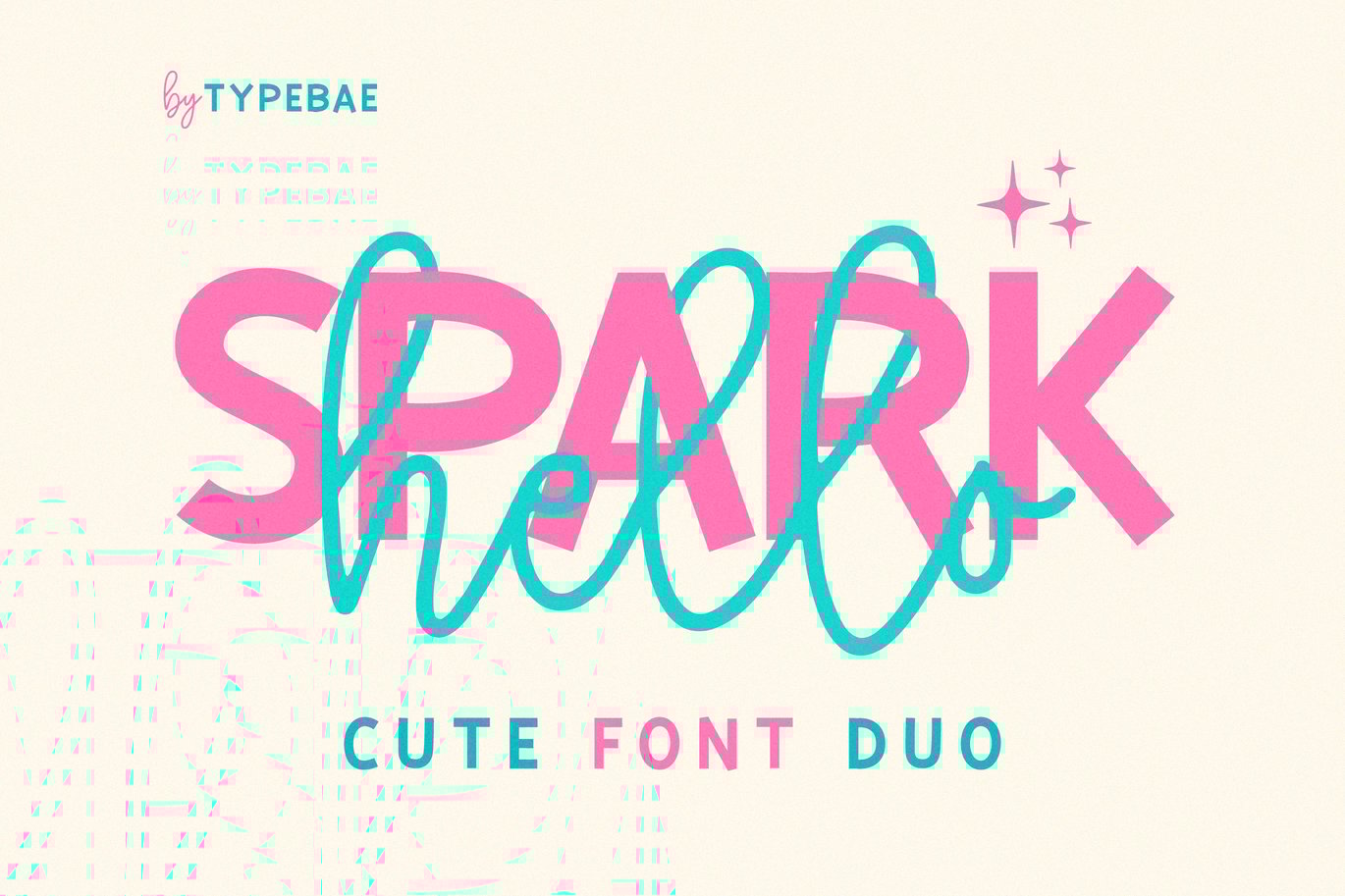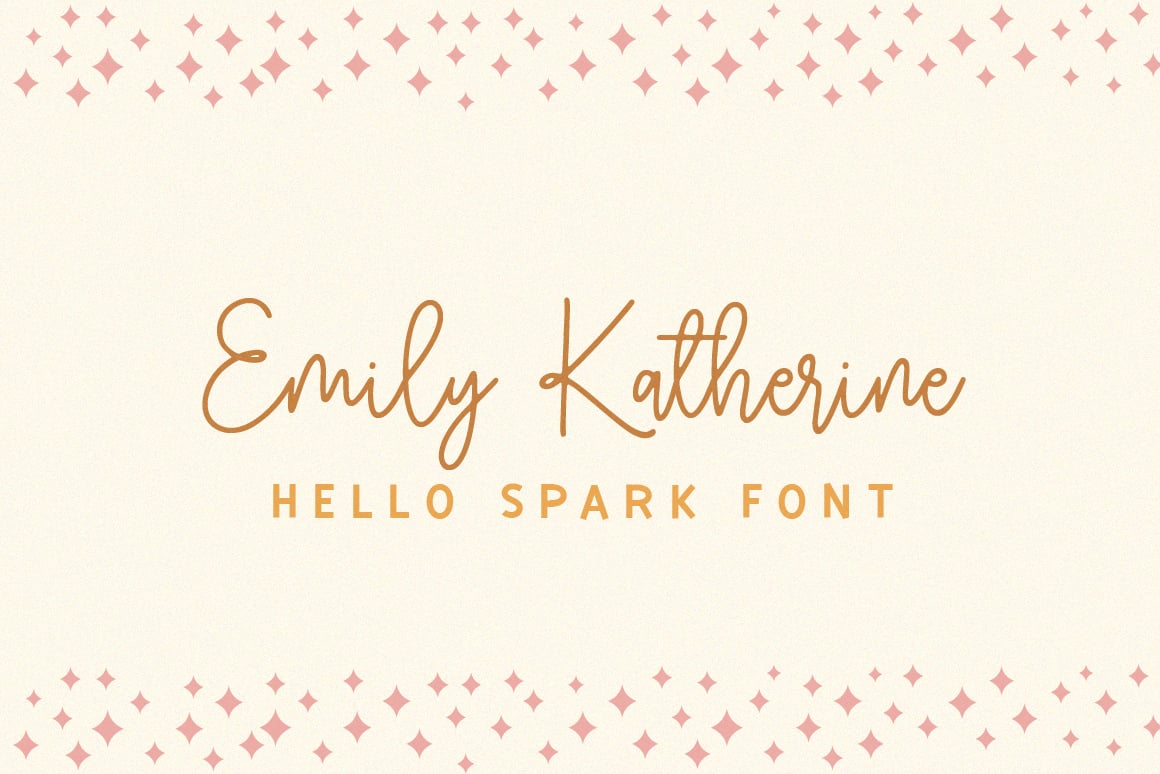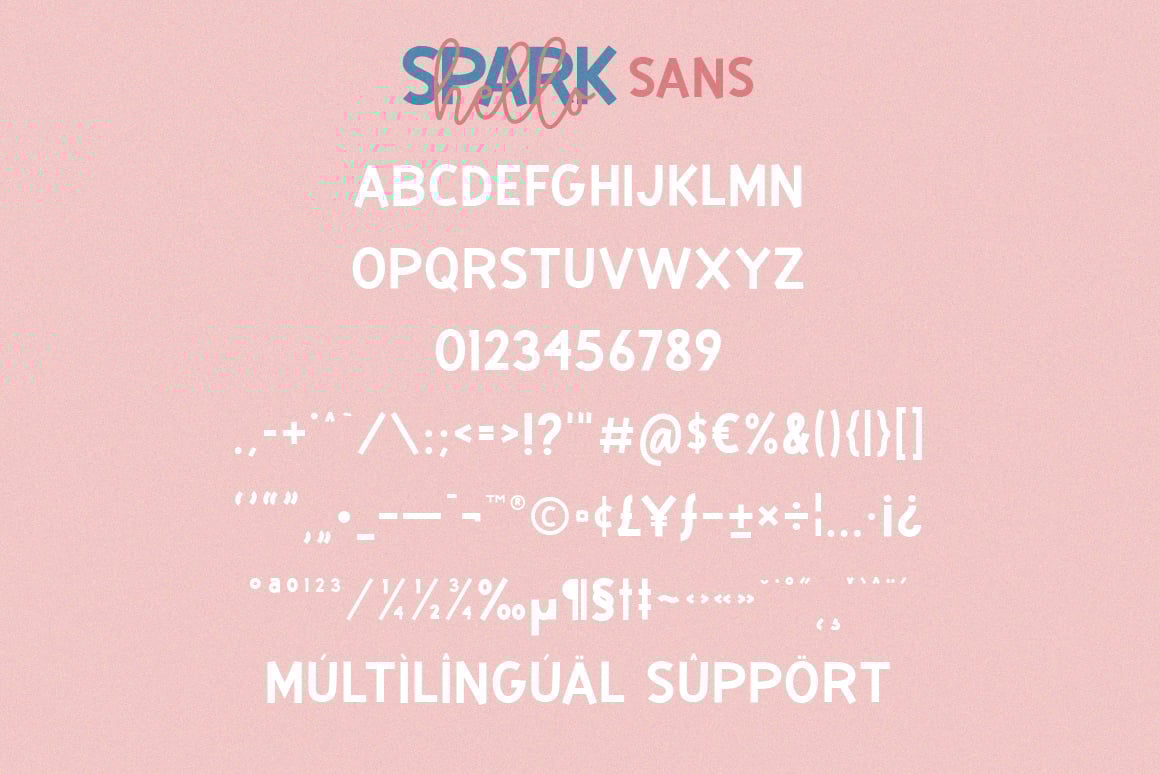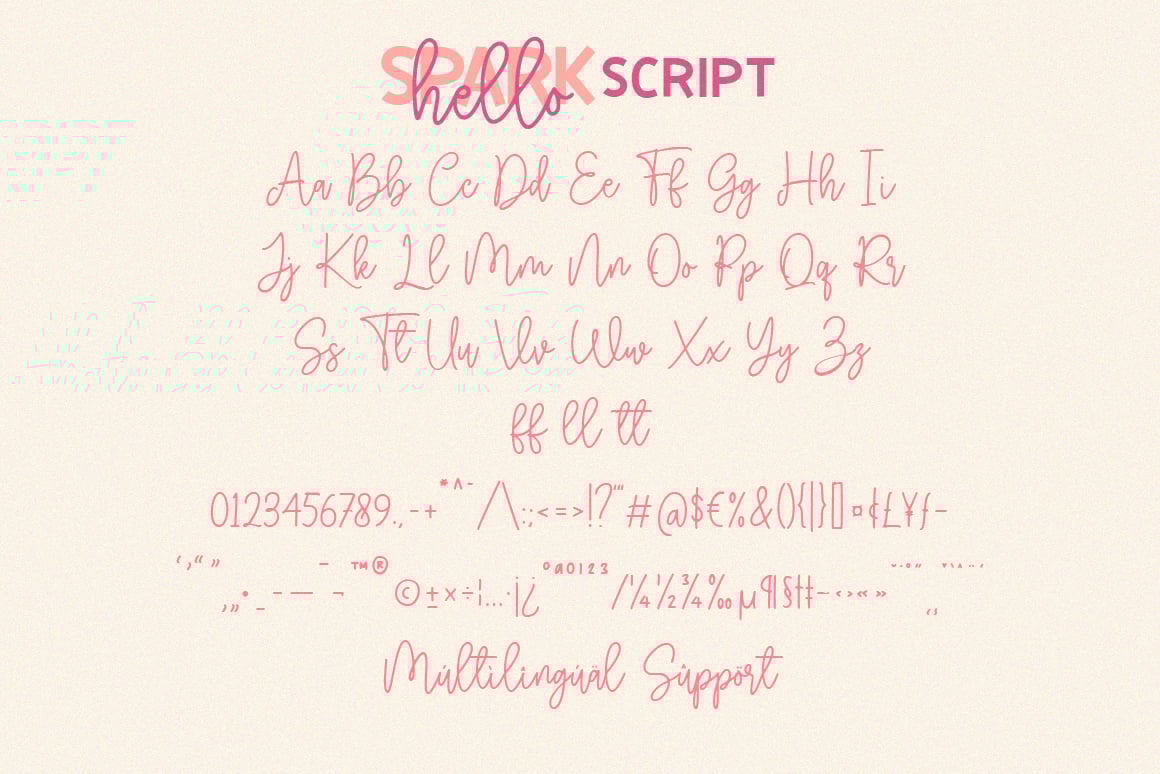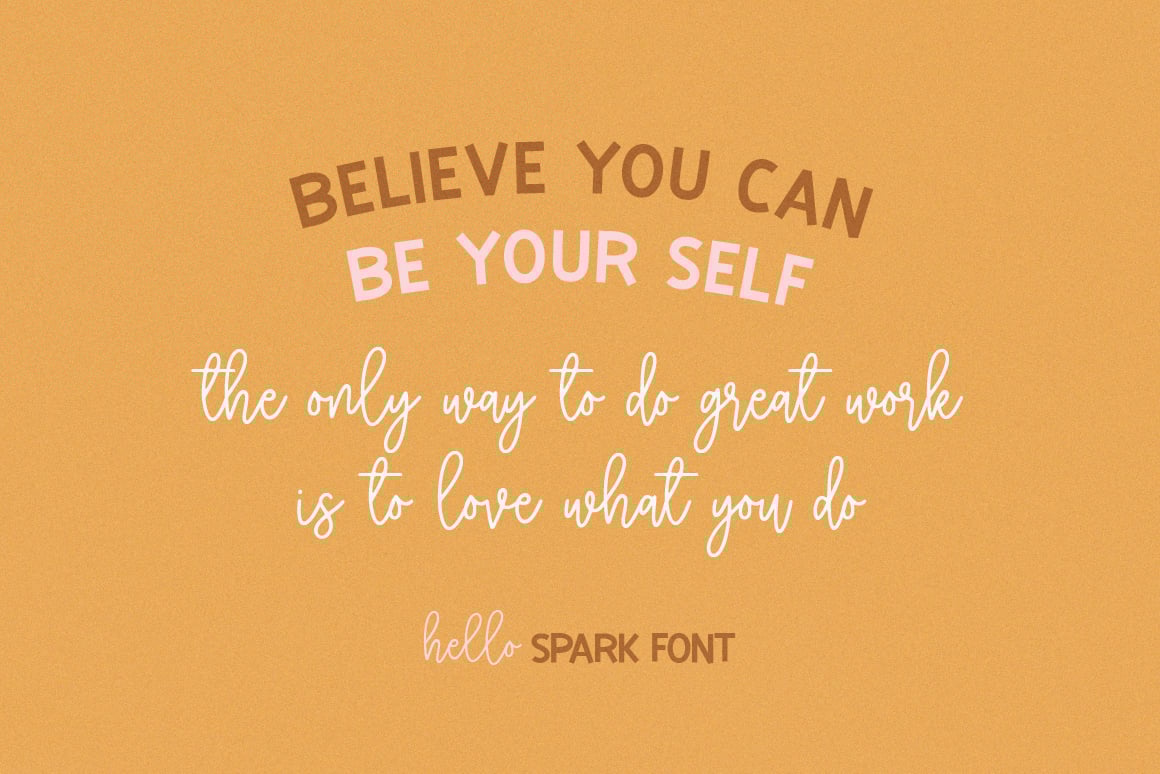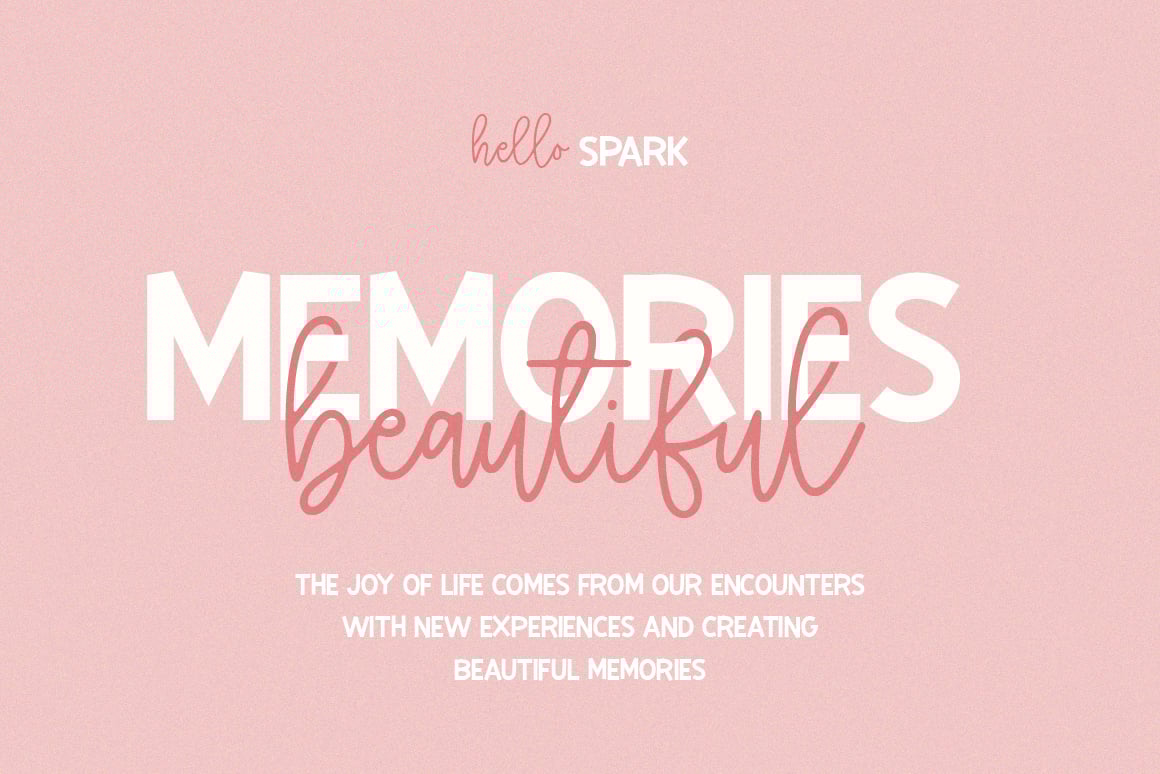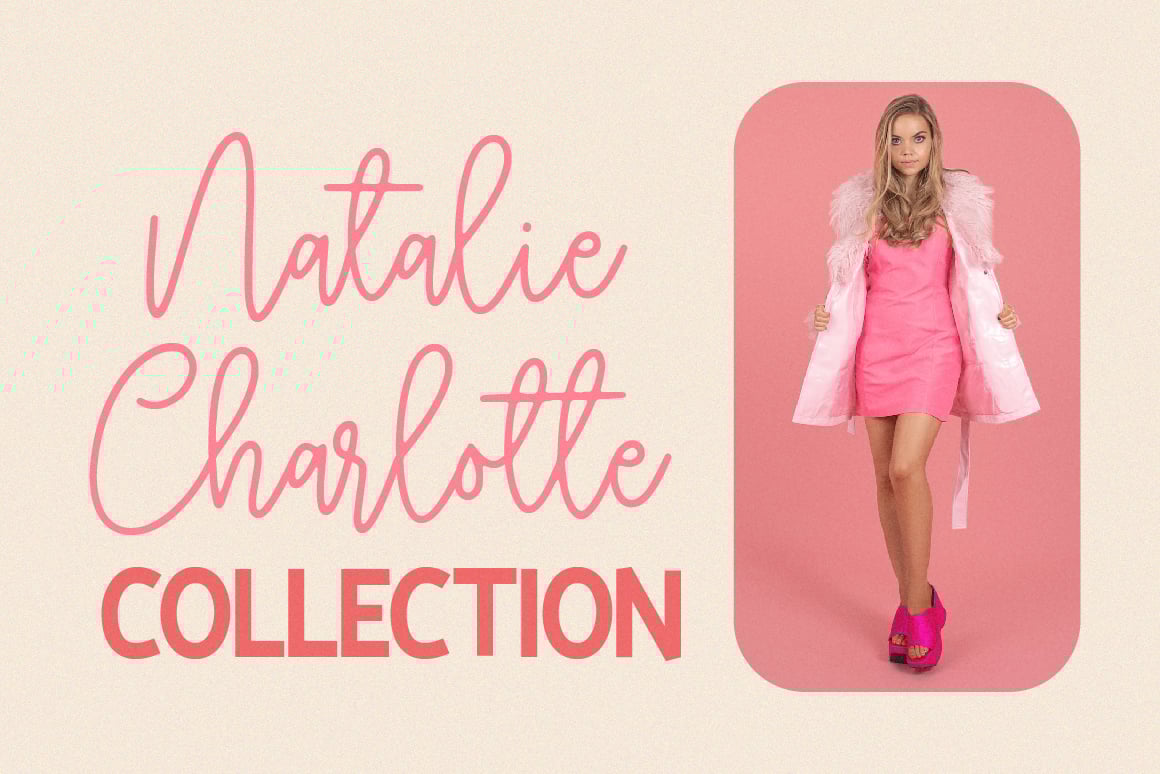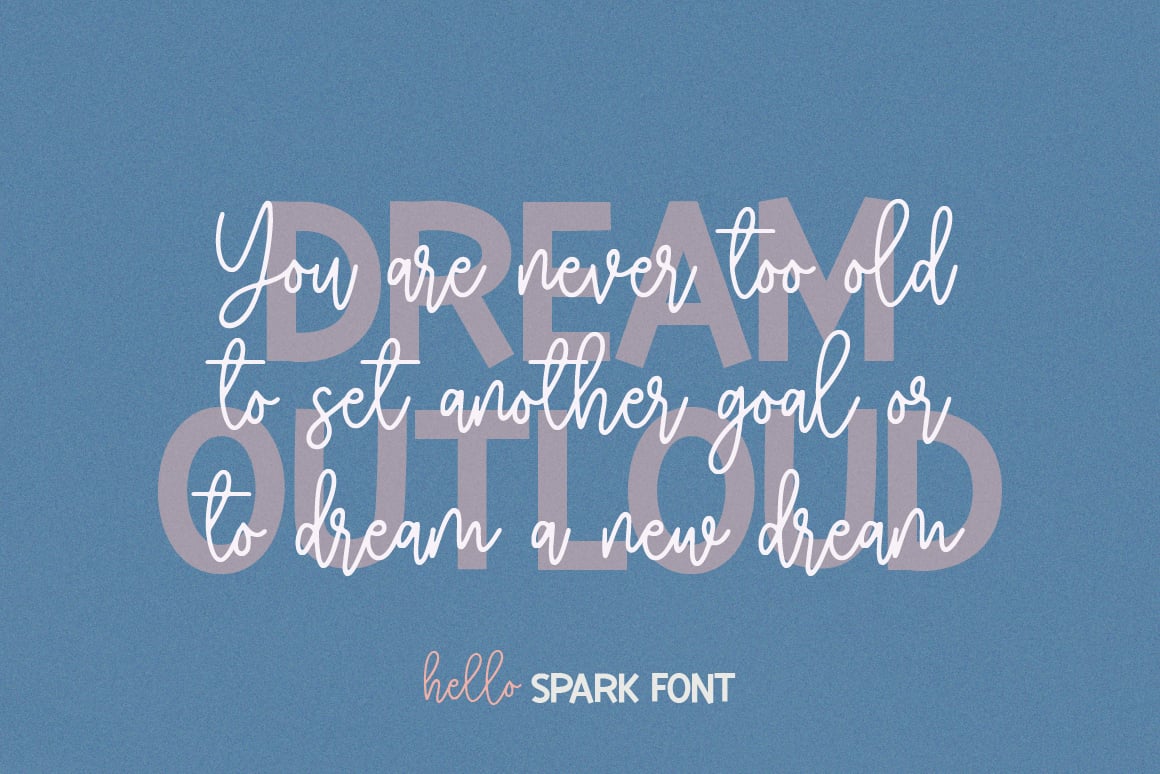
Hello Spark – Cute Font Duo
Introducing Hello Spark Font, the perfect blend of cute script and sans serif display fonts! With its charming and playful appeal, this font is ideal for a wide range of creative projects. Whether it’s books, greeting cards, posters, clothing, or picture books, this font brings joy and happiness to your designs.
- Standard alphabet and punctuation
- Ligature feature
- Multilingual Support: Afrikaans, Basque, Breton, Catalan, Danish, Dutch, English, Finnish, French, Gaelic (Irish, Scots), German, Icelandic, Indonesian, Irish, Italian, Norwegian, Portuguese, Saami (Southern), Spanish, Swahili, Swedish.